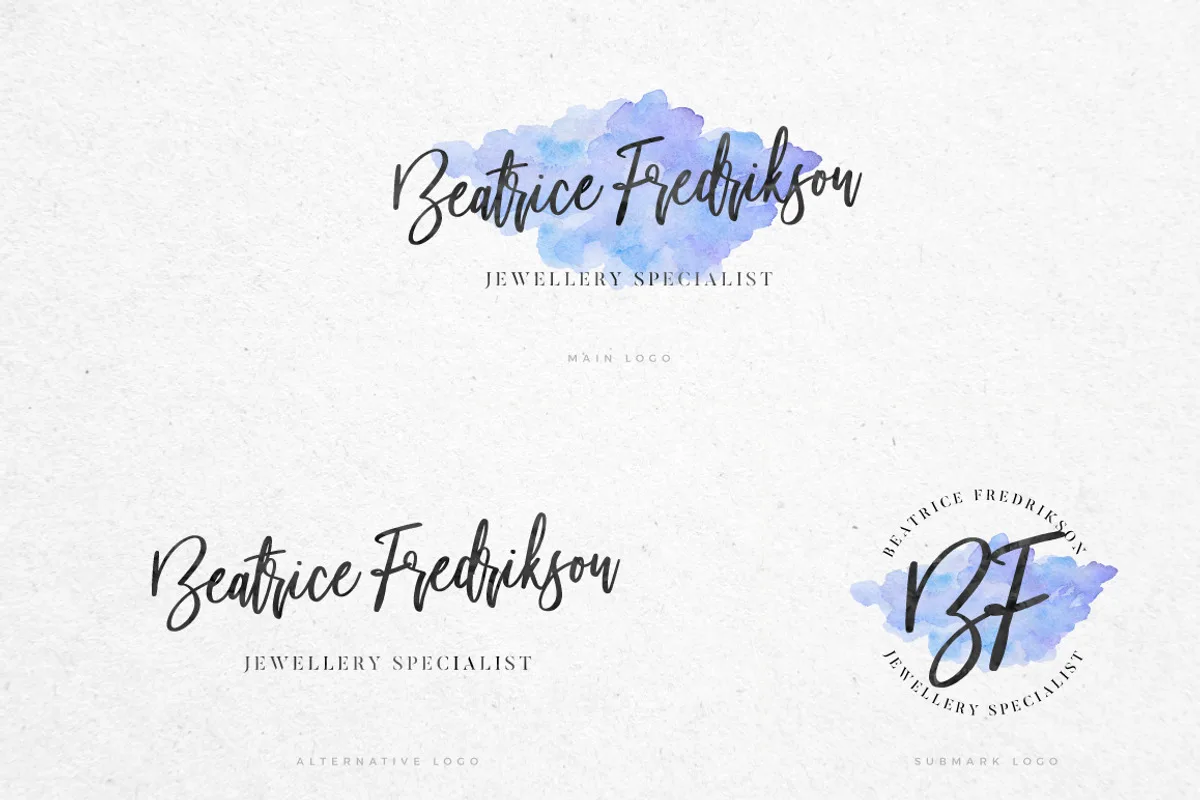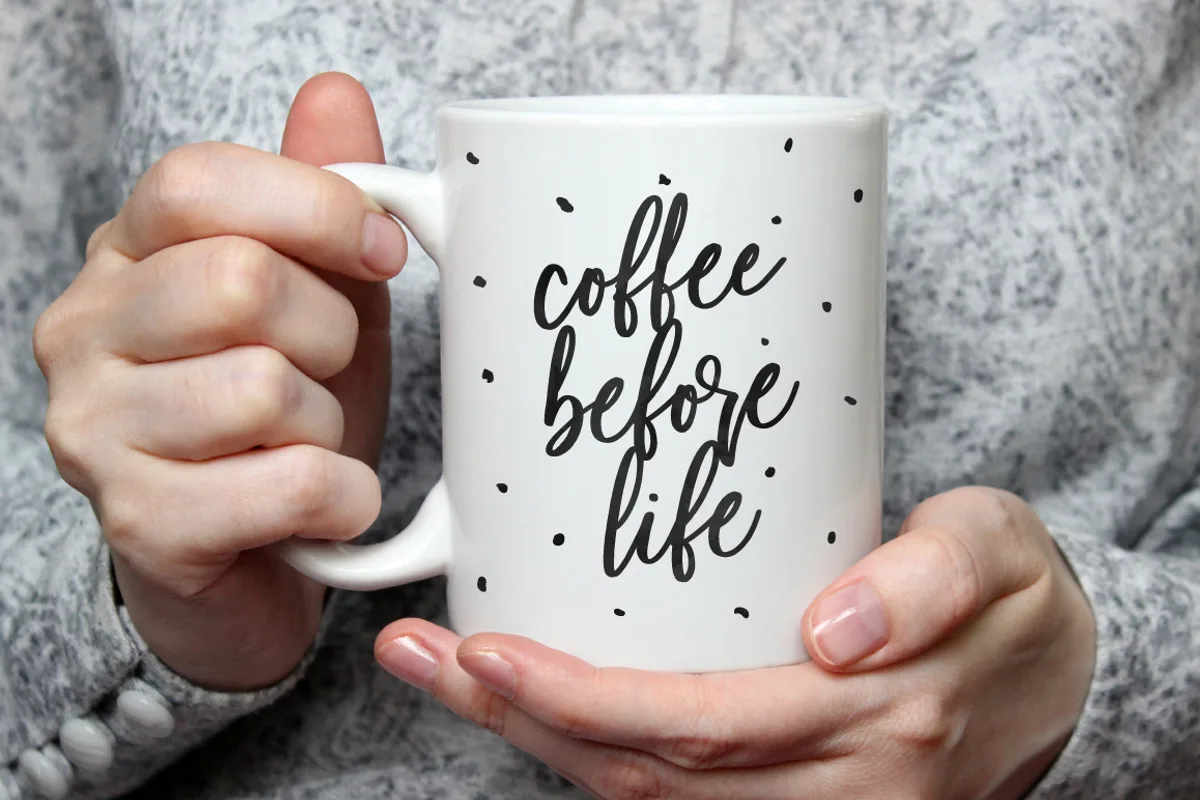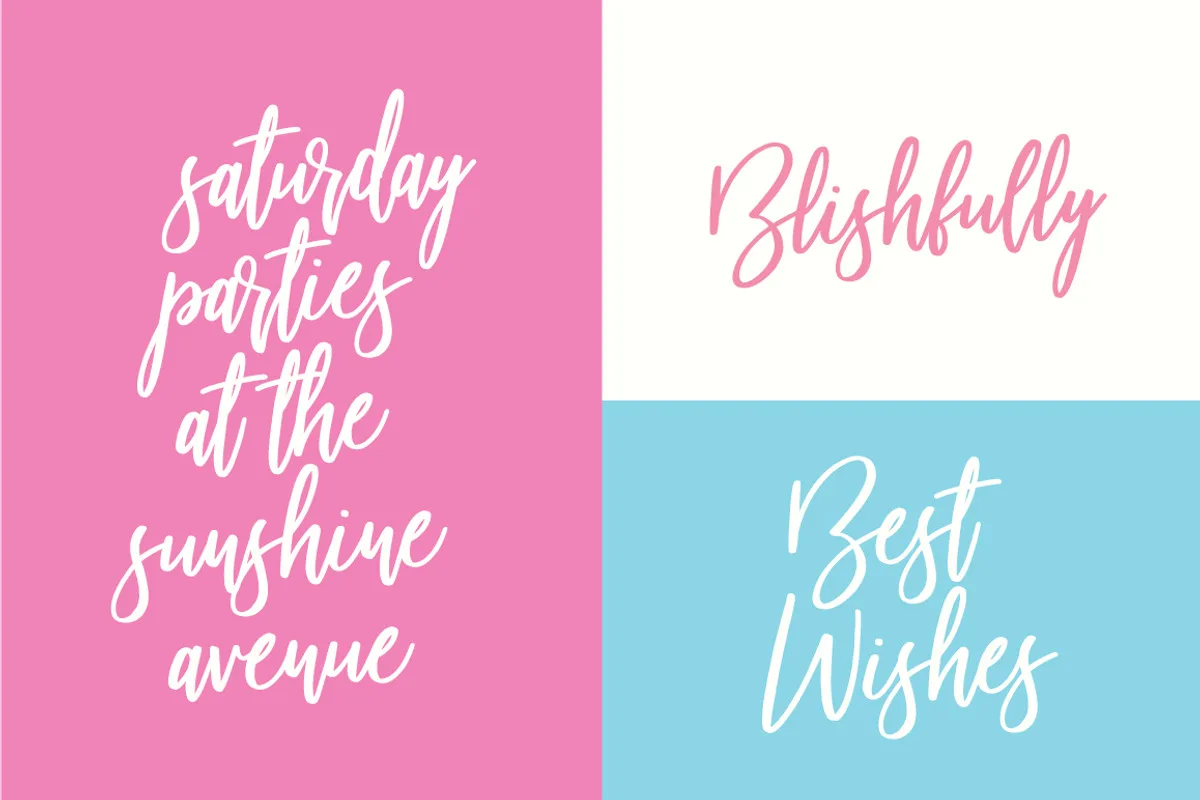
Introducing the new lovely Beautiful Bloom Typeface. It’s authentically handlettered font with full alternates (upper and lowercase). Designed to work perfectly in multiple designs like wedding invitations, website logos, Instagram posts and many many more.
BEAUTIFUL BLOOM TYPEFACE – Upper and lowercase characters, numerals, punctuations and a wide language support. Alternates for upper and lowercase characters. Including both, OTF and TTF filetypes.